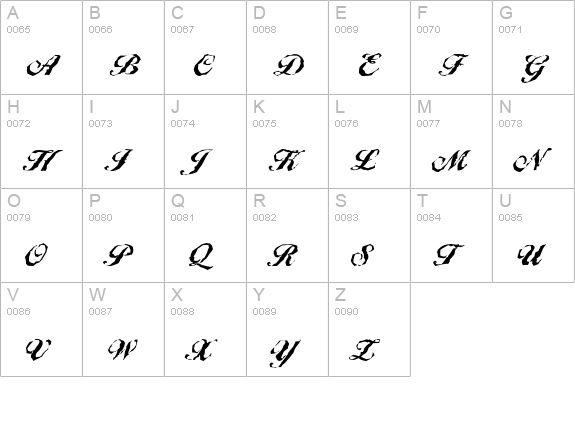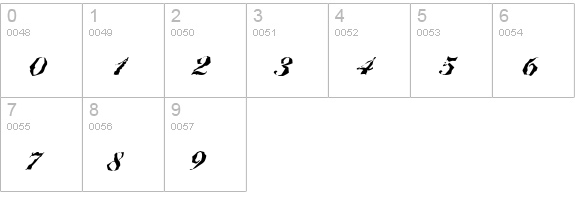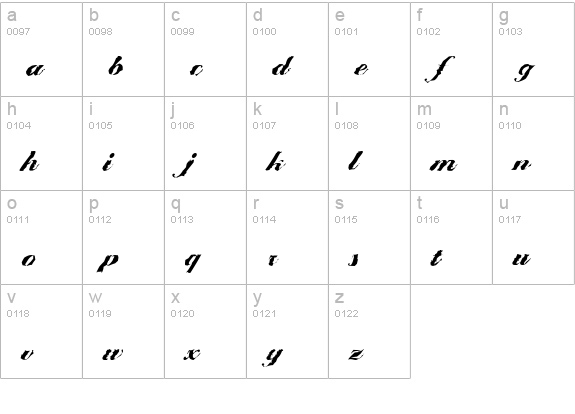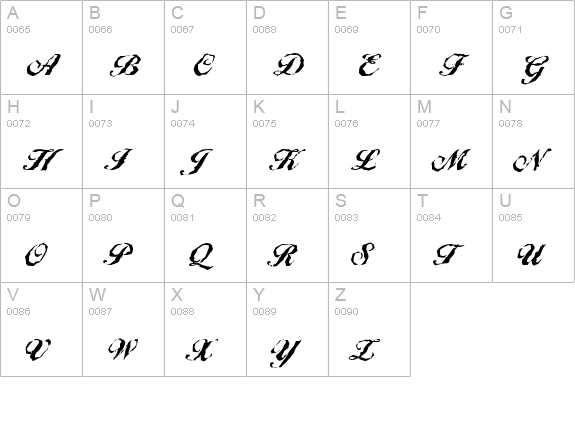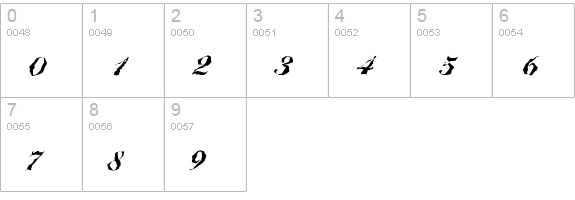
BallantinesRandom-Heavy-Regular is a heavy, high-impact variant in the BallantinesRandom typeface family \xE2\x80\x94 well suited to high-impact headlines, posters, and display advertising.
BallantinesRandom-Heavy-Regular is a unique and eye-catching font that exudes a sense of creativity and playfulness. Its irregular and random design adds a touch of spontaneity to any project, making it perfect for grabbing attention and standing out from the crowd. This heavy weight font is versatile and can be used for various design purposes, from headlines to logos to posters. What makes BallantinesRandom-Heavy-Regular even more appealing is that it is available for free download at FontsMarket.com. This means that you can easily access this fantastic font without any cost, allowing you to enhance your designs without breaking the bank. Don't miss out on the opportunity to add BallantinesRandom-Heavy-Regular to your font collection and let your creativity soar!